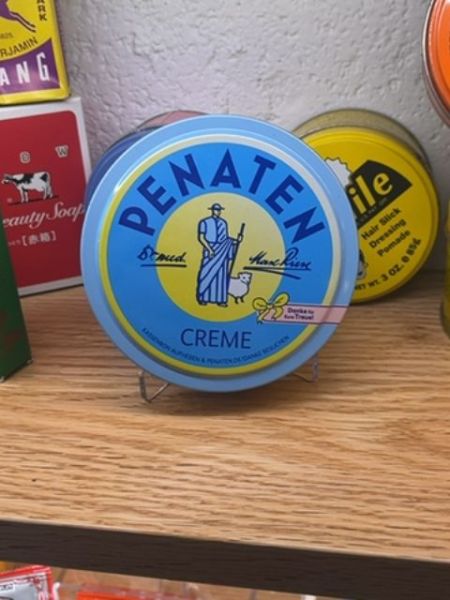
Penaten Creme
Penaten Creme is a skincare product designed for protecting and soothing baby skin. It is often used to prevent diaper rash and moisturize dry skin.
1904
Germany
The typography on the packaging uses bold, sans-serif lettering for the brand name, ensuring high readability. The choice of a classic yet simple font aligns with the traditional and reliable brand image. There are variations in font weight, with lighter text used for descriptive elements, balancing the overall design.
The packaging is a round tin can with a blue and yellow color scheme. It features a classic illustration of a shepherd with a staff and lamb, giving a traditional and trustworthy appeal. The text is prominently displayed on the lid, ensuring brand visibility.
- Penaten Creme is specifically formulated for baby skin care.
- It has been a trusted brand for generations in Germany.
- The product is known for its thick and effective protective layer against moisture.